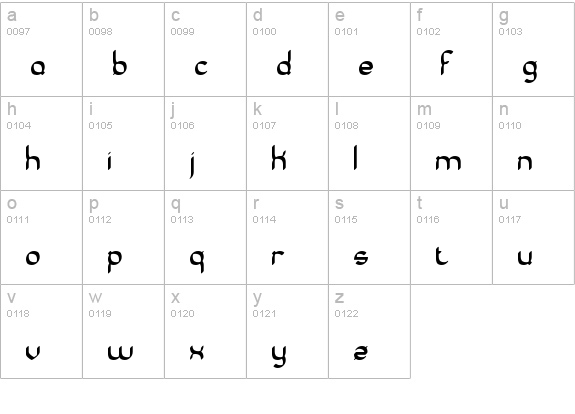
Quadratic Cal BRK Font Details
Quadratic Cal BRK font is a modern and sleek typeface that exudes elegance and sophistication. With its clean lines and geometric shapes, this font is perfect for a wide range of design projects, from branding to editorial design. The Quadratic Cal BRK font features a unique blend of sharp angles and smooth curves, giving it a distinct and eye-catching appearance. What sets Quadratic Cal BRK font apart is not only its striking design but also its versatility. Whether used for headlines, body text, or graphic elements, this font will add a touch of style and professionalism to any project. Best of all, Quadratic Cal BRK font is available for free download at FontsMarket.com. So why wait? Elevate your designs with this stunning font today!